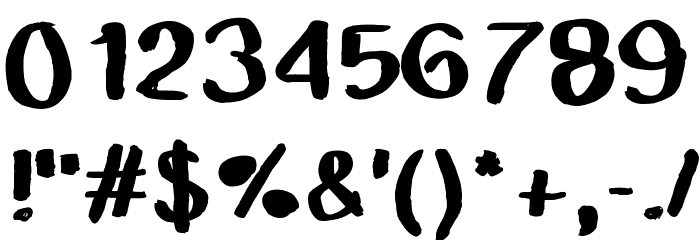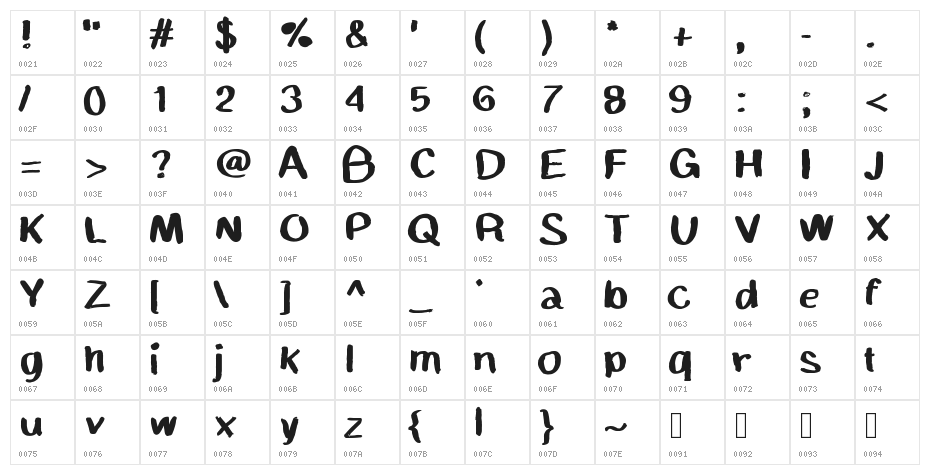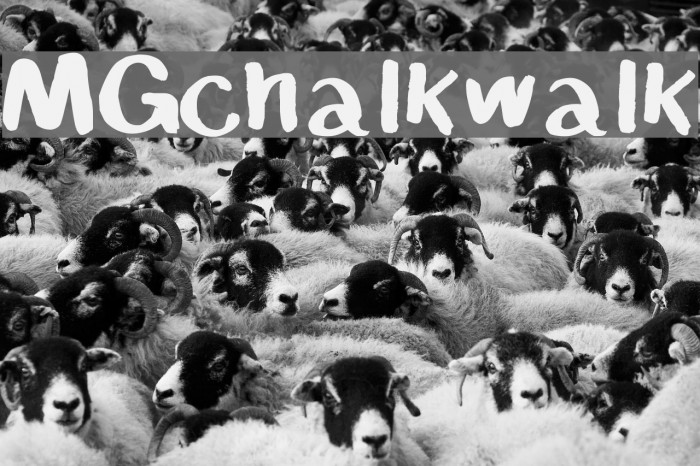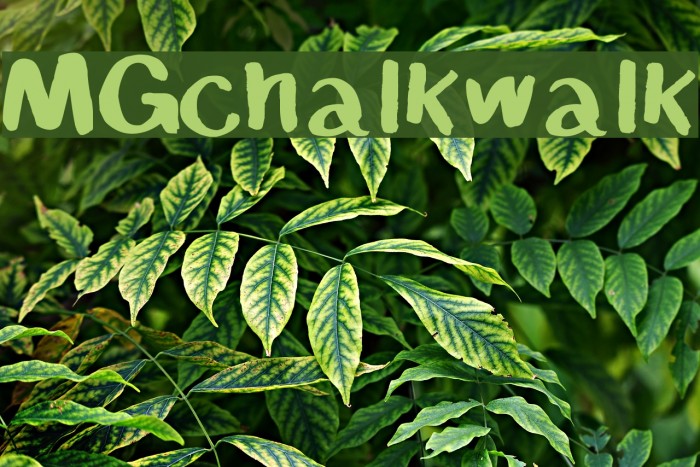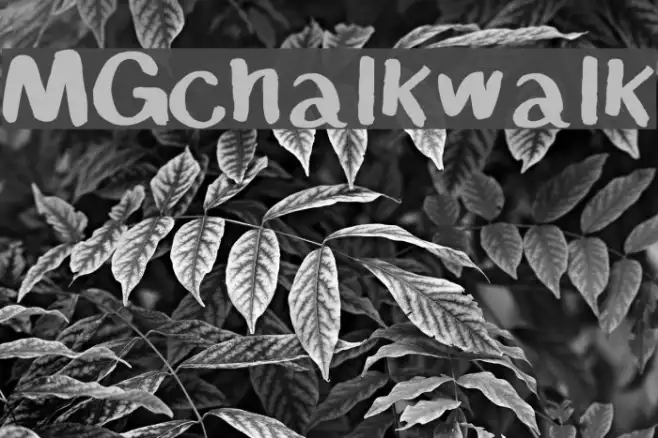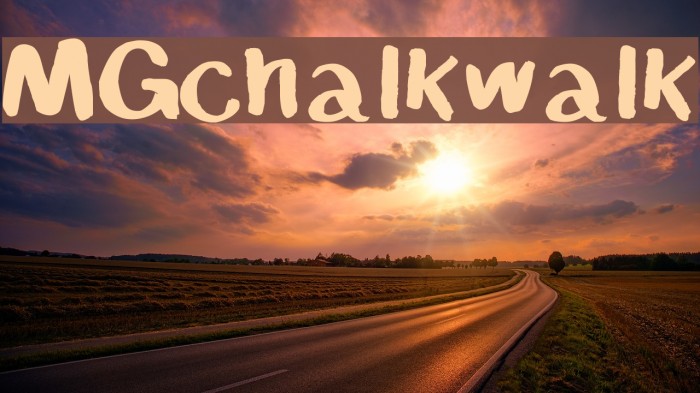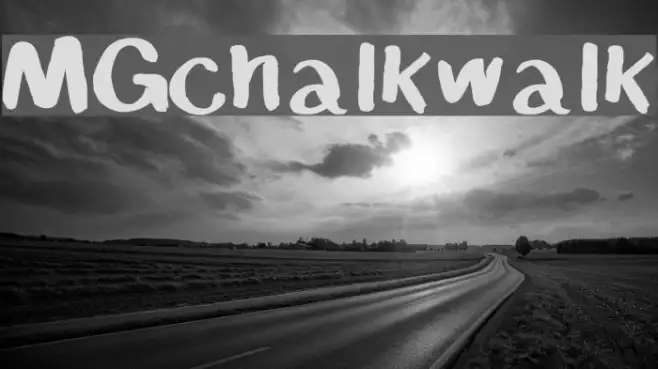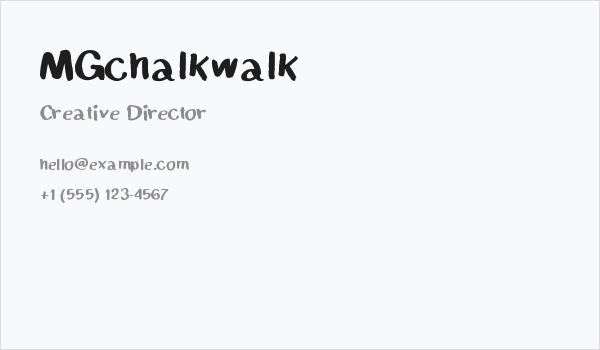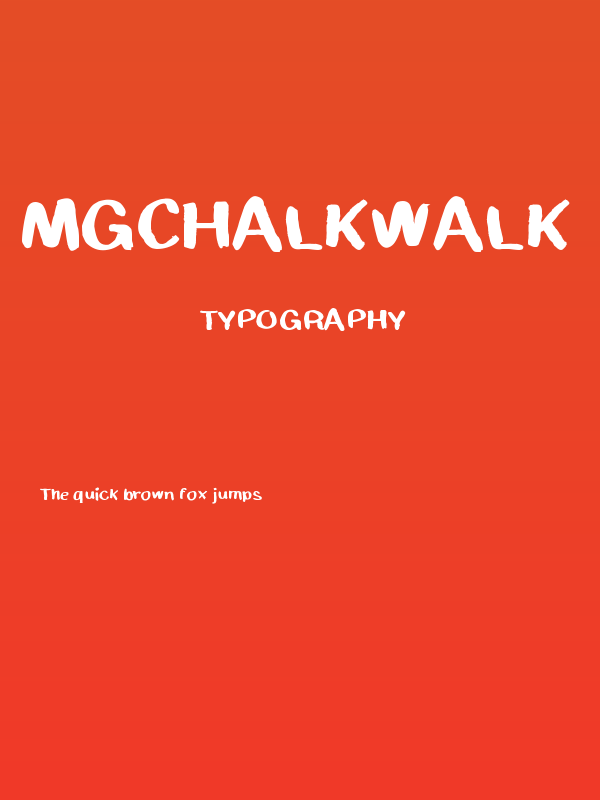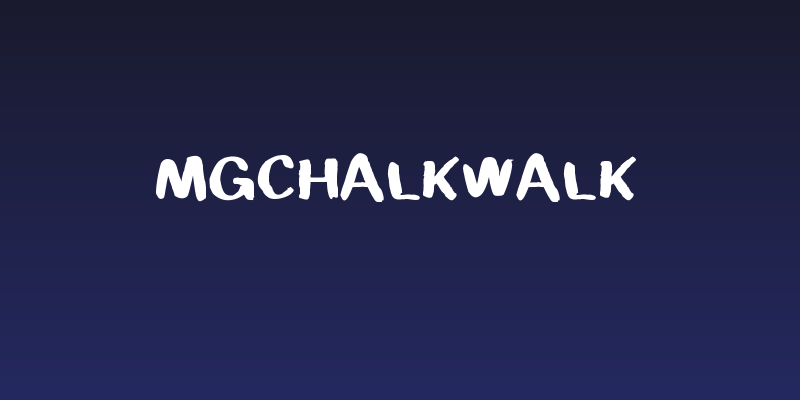
MGchalkwalk Font
MGchalkwalk Description
This font exudes a playful and artistic vibe, reminiscent of chalk writing on a blackboard. The characters are bold and slightly irregular, giving them a hand-drawn appearance. The uppercase and lowercase letters maintain a consistent style, with rounded edges and a slightly uneven baseline, enhancing the casual, informal look. Numbers and special characters follow the same design principles, ensuring uniformity across all glyphs. The strokes are thick and consistent, providing a strong visual impact. This font is ideal for projects that require a personal touch or a creative flair.